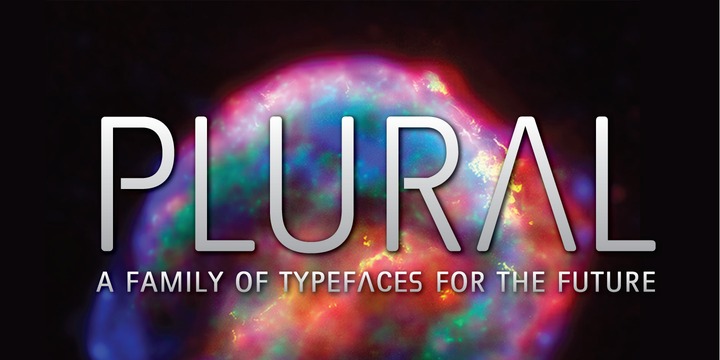
• Plural™
Plural is a contemporary, futuristic sans serif that is eminently readable on-screen and in print. It appears to be monolinear due to its hybrid geometric and humanist construction, but actually swells slightly at the curves and tapers slightly at the terminals for pronounced readability. It features a full Central and Eastern European character set and is offered in five weights: light, regular, medium, semibold and bold. These are offset by matching italic cuts of each weight to give designers more variation. More…
The typeface also includes five weights of a retro-futuristic display face called Plural Display that bring in more idiosyncratic characters for display setting- a NASA-inspired space age “A”, a decorative "double-V" treatment for the “W”, a flared “M” and a whole lot more. Italic versions of Plural Display are also featured.
The entire family was given rigorous testing using Craig Mod’s Bibliotype html-based book layout system for on-screen rendering checks and innumerable print proofs using actual text (not Greek) in InDesign.
Plural works well as display type, as well as text type both in print and on-screen. The twenty-member family is bound to be of continual use.
I have been doing a bunch of graphic design work for NASA as of late and it has inspired me to create custom type that I might use in their projects.
Plural is thin and upright, even in the bolder weights, this stern appearance is balanced by terminals with rounded corners. It feels friendly and futuristic. The display cuts of the typeface include idiosyncratic characters for display setting- a NASA-inspired space age “A”, a decorative "double-V" treatment for the “W” and a flared "M.
Plural is designed for readability on-screen and in print. It is suitable on the web for @font-face CSS application, in e-books as a text face (and has all of the nuanced characters needed to make a great book face) and in print from books to billboards.